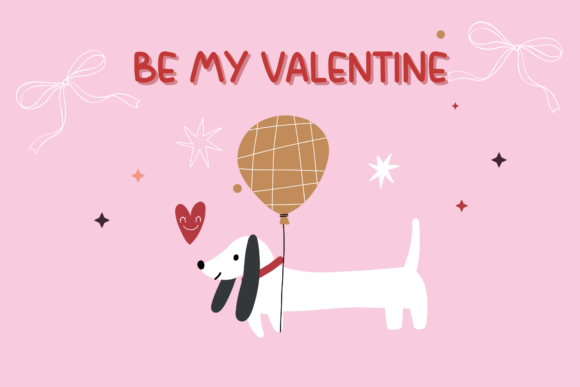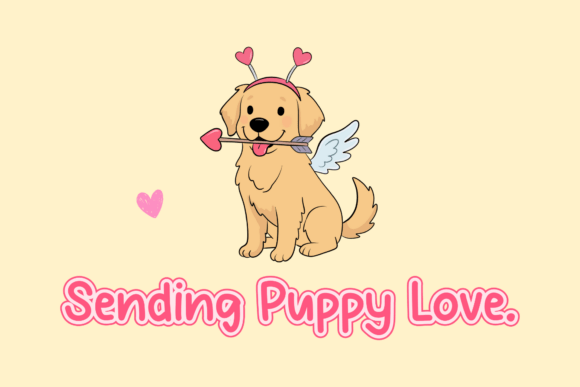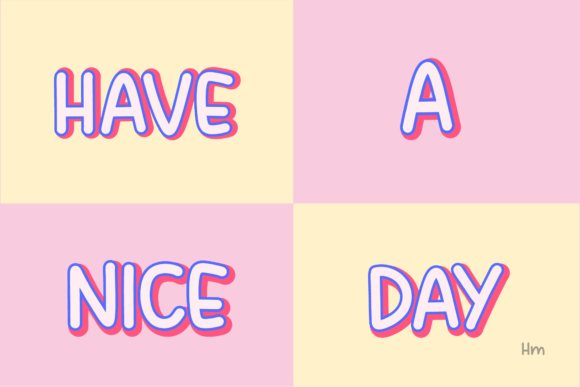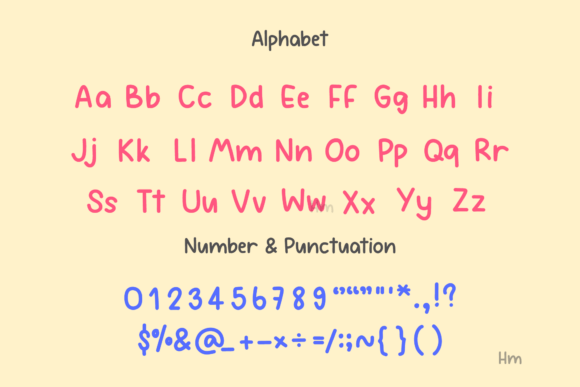
Introducing Friendly Kids Font: The Perfect Typeface for Whimsical Designs
Are you a designer, crafty enthusiast, or educator looking for a font that captures the essence of childhood? Look no further than Friendly Kids Font, a delightfully cute and approachable handwritten typeface designed specifically for children’s content and playful designs. In this article, we’ll explore the features and benefits of Friendly Kids Font, and how it can elevate your creative projects.
A Font that Embodies the Joy of Childhood
Friendly Kids Font is a handcrafted typeface that exudes warmth and friendliness. Its soft, rounded letters have a bouncy rhythm that perfectly captures the innocence and joy of childhood. The font’s high legibility ensures that it remains clear for young readers, making it an excellent choice for educational materials, children’s books, and nursery decor.
Design Features and Characteristics
Friendly Kids Font boasts several design features that make it an attractive choice for designers and crafters. Some of its notable characteristics include:
- Soft, rounded letters with a bouncy rhythm
- High legibility for young readers
- Hand-drawn charm adds a personal touch to designs
- Perfectly suited for children’s content and playful designs
Friendly Kids Font is an incredibly versatile typeface that can be used in a wide range of creative projects. Some ideas to get you started include:
- Custom birthday invitations and party decor
- Branding and packaging for organic baby products
- Classroom posters and educational materials
- Storybook titles and children’s book illustrations
- Personalized apparel and nursery decor
Pairing Suggestions for Maximum Impact
To enhance the friendly vibe of Friendly Kids Font, consider pairing it with bright primary colors and whimsical illustrations of animals or nature. This combination creates a visually appealing and engaging design that’s perfect for children’s content. Some popular pairing options include:
- Bright primary colors like red, blue, and yellow
- Whimsical illustrations of animals, such as rabbits, birds, or monkeys
- Nature-inspired elements, like flowers, leaves, or clouds
Why Choose Friendly Kids Font?
Friendly Kids Font is the go-to choice for creators who want to communicate a sense of safety, fun, and kindness through their typography. With its hand-drawn charm and high legibility, this font is perfect for designers and crafters who want to create engaging and child-friendly designs. By choosing Friendly Kids Font, you’ll be able to:
- Create designs that feel warm and inviting
- Communicate a sense of safety and kindness
- Add a personal touch to your designs
- Elevate your brand or product with a unique and playful typography
In conclusion, Friendly Kids Font is a delightful and approachable handwritten typeface that’s perfect for children’s content and playful designs. With its soft, rounded letters and high legibility, this font is sure to capture the hearts of young readers and designers alike. Whether you’re creating educational materials, custom birthday invitations, or branding a new line of organic baby products, Friendly Kids Font is the perfect choice for adding a touch of warmth and friendliness to your designs.